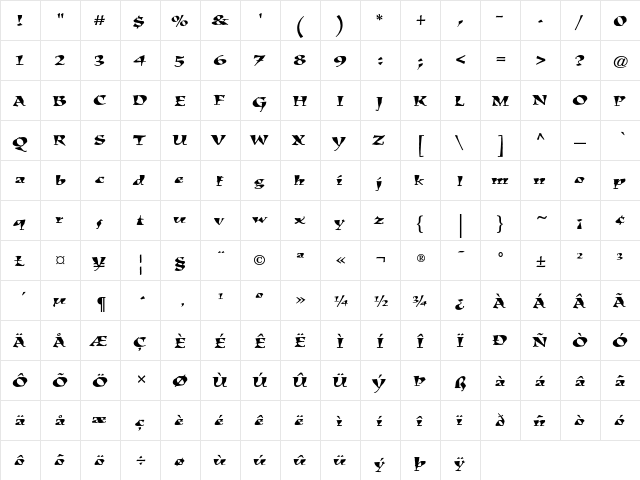
Kigali Sx
Design Context for Kigali Typeface
Kigali is a composed and adaptable typeface that performs quietly and consistently across a wide range of design contexts.